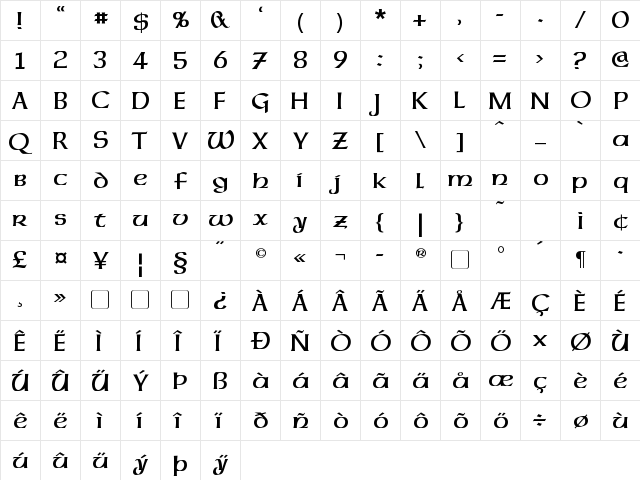
Dalelands Uncial Regular
| Foundry | Neale Davidson |
| Designer | Neale Davidson |
Design Context for Dalelands Uncial Typeface
Dalelands Uncial takes a measured approach to typography — its balanced proportions and neutral character make it a reliable workhorse for both digital and print work.